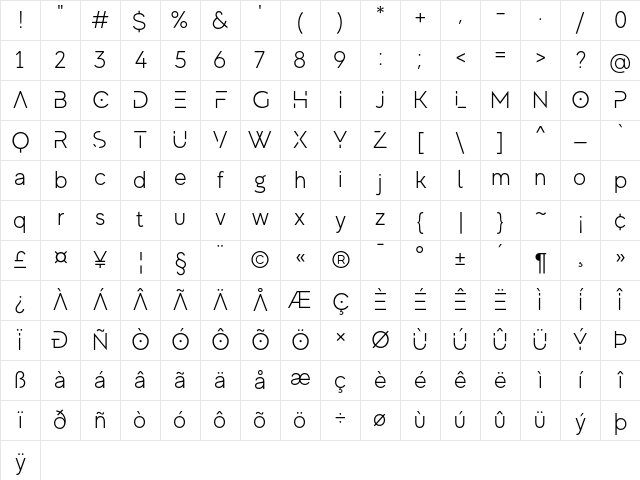
Complete MADE Evolve Sans EVO Light glyph index. Displaying only characters natively supported by MADE Evolve Sans EVO Light font.
MADE Evolve Sans EVO is a composed and adaptable typeface that performs quietly and consistently across a wide range of design contexts. Its slender proportions lend an understated elegance to any composition.
Pro Tip: Use MADE Evolve Sans EVO in both headline and body roles to test its range before committing to a single application.